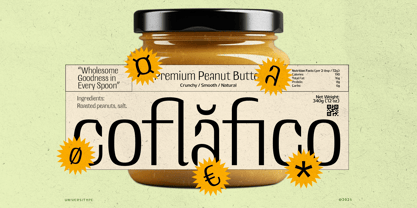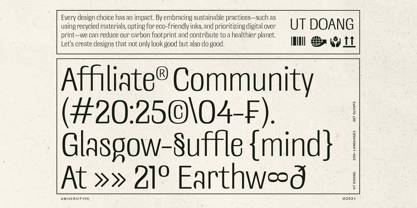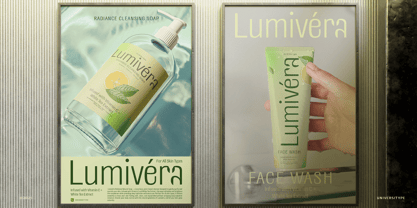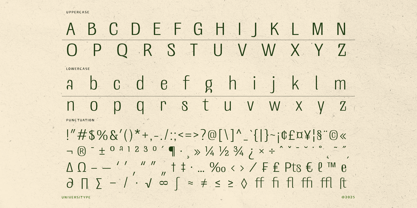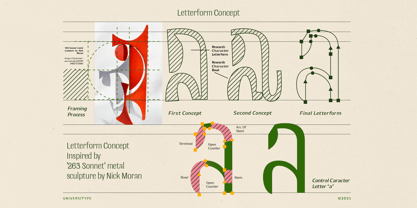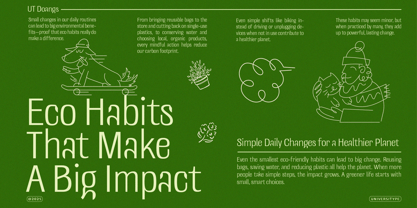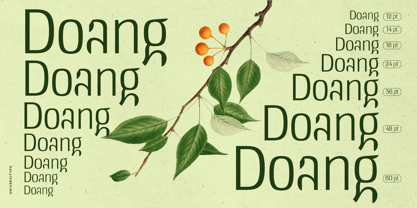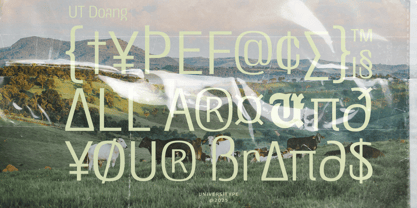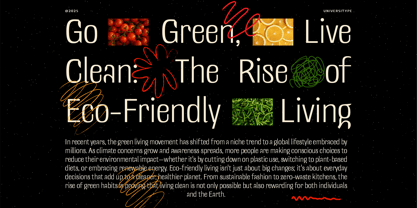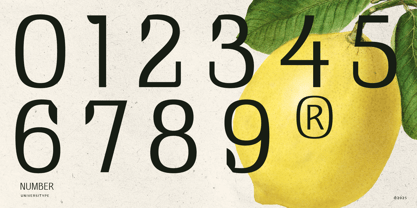
UT Doangs
The UT Doangs Font Family was designed by Muh. Aswar, Novan Arisandi and published by Universitype. UT Doangs contains 1 styles.
UT Doangs – Where Typography Meets Sculpture.
UT Doangs is an expressive display typeface inspired by industrial sculpture. Abstract yet poetic, it translates the soft curves and tension of bent steel into typographic form. With its flowing asymmetry and handmade feel, UT Doangs is built for creatives who want to make a statement.
Perfect for editorial layouts, posters, branding, album covers, and visual identities where art and type collide.
Key Features
• One weight: Regular (Display)
• Uppercase & lowercase characters
• Punctuation & symbols
• Multilingual support (200+ Latin-based languages)
• OpenType features
• Carefully spaced and kerned for headline clarity
Inspiration Behind UT Doangs
UT Doangs draws inspiration from Nick Moran’s sculpture “263 Sonnet”, a minimalist metal form that captures both tension and grace. The sculpture’s ability to balance raw industrial materials with delicate, poetic flow was the spark that lit the creative fire for this typeface. Each curve, gap, and negative space in the sculpture felt like a character waiting to be born—where form doesn’t follow function, but emotion.
In translating this into type, every letter in UT Doangs was treated as a miniature sculpture. The design process involved sketching directly over the sculpture’s silhouette, extracting rhythmic gestures, and evolving them into glyphs with purpose and personality. This font doesn’t just represent text—it communicates structure, motion, and a tactile story. UT Doangs is more than a typeface; it’s a visual homage to the artistry of materials shaped by human intention.